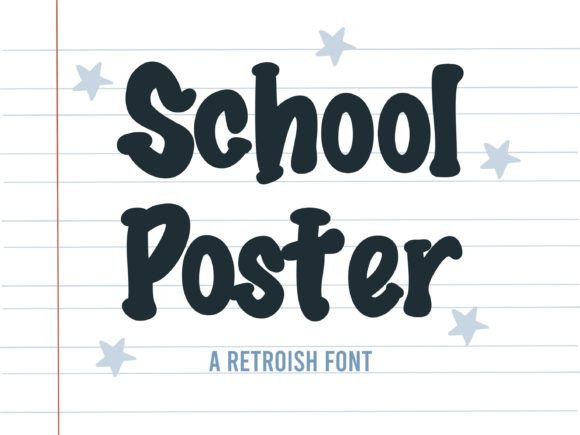
Introducing School Poster Font, the ultimate choice for your online poster needs! Crafted with utmost care by the talented team at Little Nolia Graphics, this font is designed to captivate your audience and ignite their nostalgic memories of bulletin boards from their childhood. With its playful and hand-drawn aesthetic, School Poster Font is the perfect companion to add a touch of creativity and fun to any project.
Immerse yourself in the world of School Poster Font, where imagination knows no bounds. Let your creativity run wild as you explore the countless possibilities this font offers. Whether you're designing eye-catching posters, banners, or digital graphics, School Poster Font will effortlessly elevate your creations to new heights.
Unleash the power of School Poster Font and watch your designs come to life. Its unique display style instantly grabs attention, making it an ideal choice for anyone seeking to stand out from the crowd. Transform dull and ordinary designs into captivating works of art that leave a lasting impression.
But what sets School Poster Font apart from the rest? It's not just another font; it's a journey back to your fondest memories. Let the nostalgia of bulletin boards flood your senses as you embrace the timeless charm of this font. Each character is meticulously crafted, ensuring that every detail is perfect and every stroke evokes a sense of warmth and familiarity.
With School Poster Font, you become the master storyteller, weaving tales of creativity and imagination. Transport your audience to a world where words come alive and emotions are vividly expressed. Whether you're promoting a product, organizing an event, or simply sharing your thoughts, School Poster Font will help you leave a lasting impression.
Don't settle for ordinary fonts that fade into the background. Embrace the extraordinary with School Poster Font and watch as your designs become the talk of the town. Its versatility allows it to shine across various platforms, ensuring that your message reaches your target audience effectively.